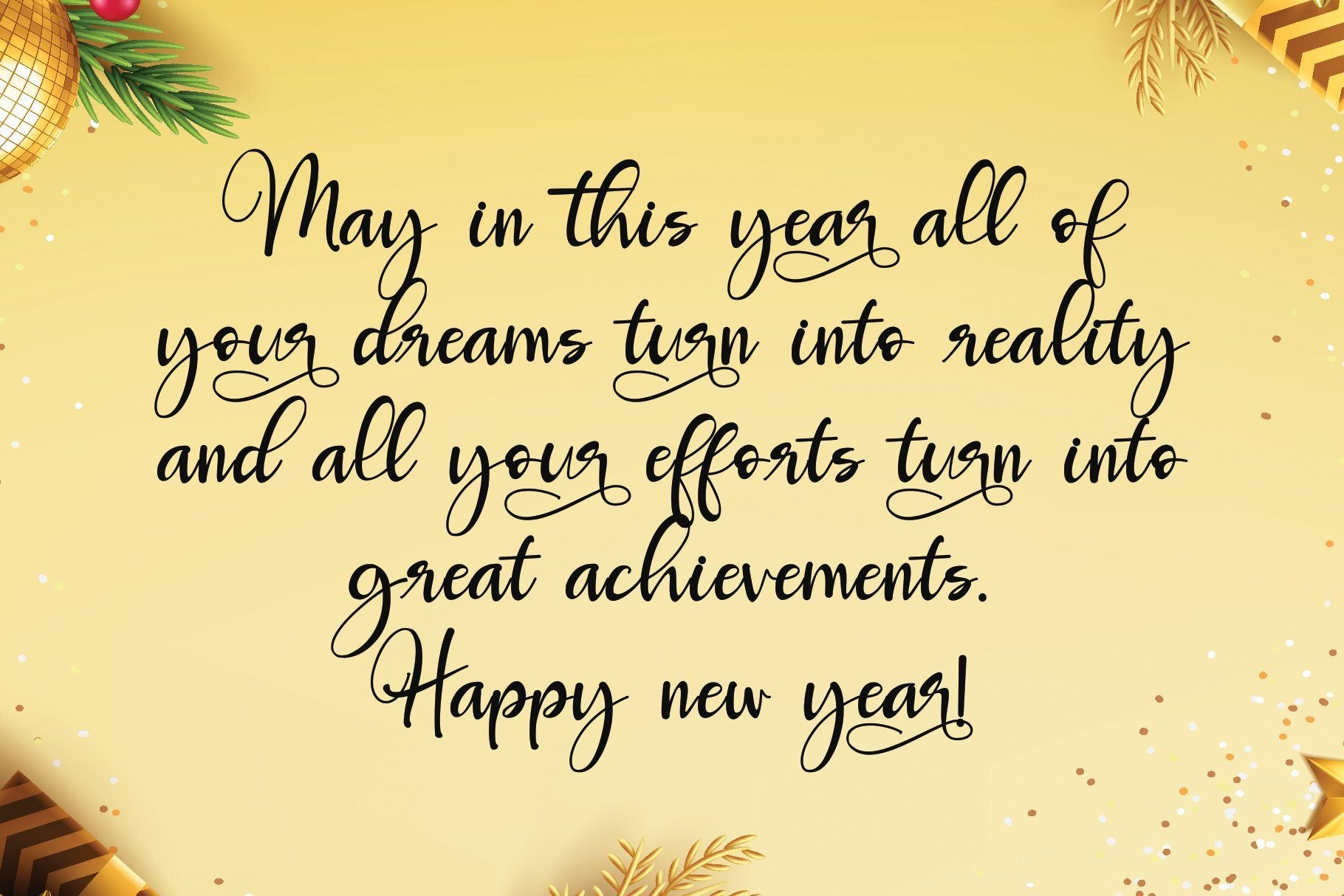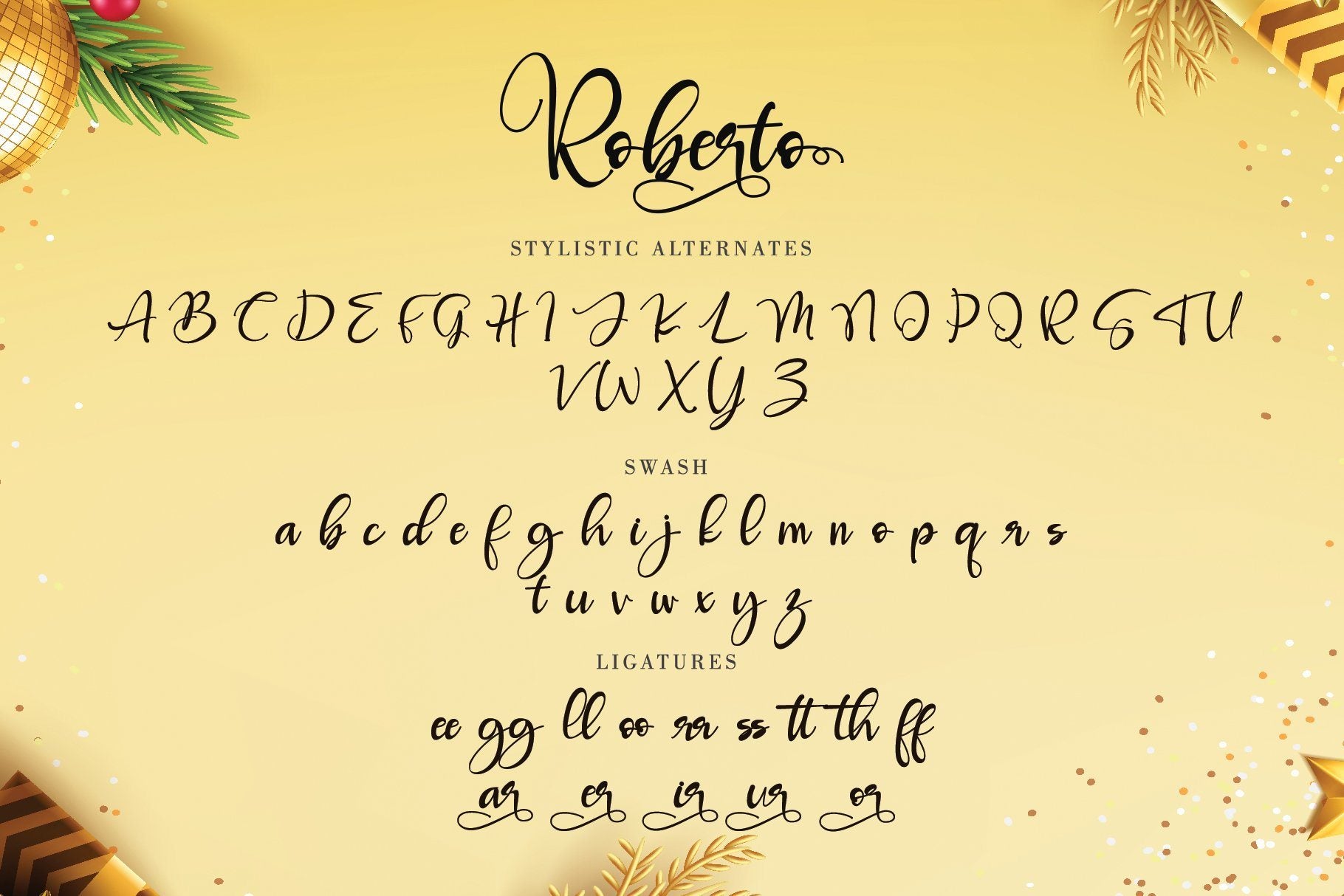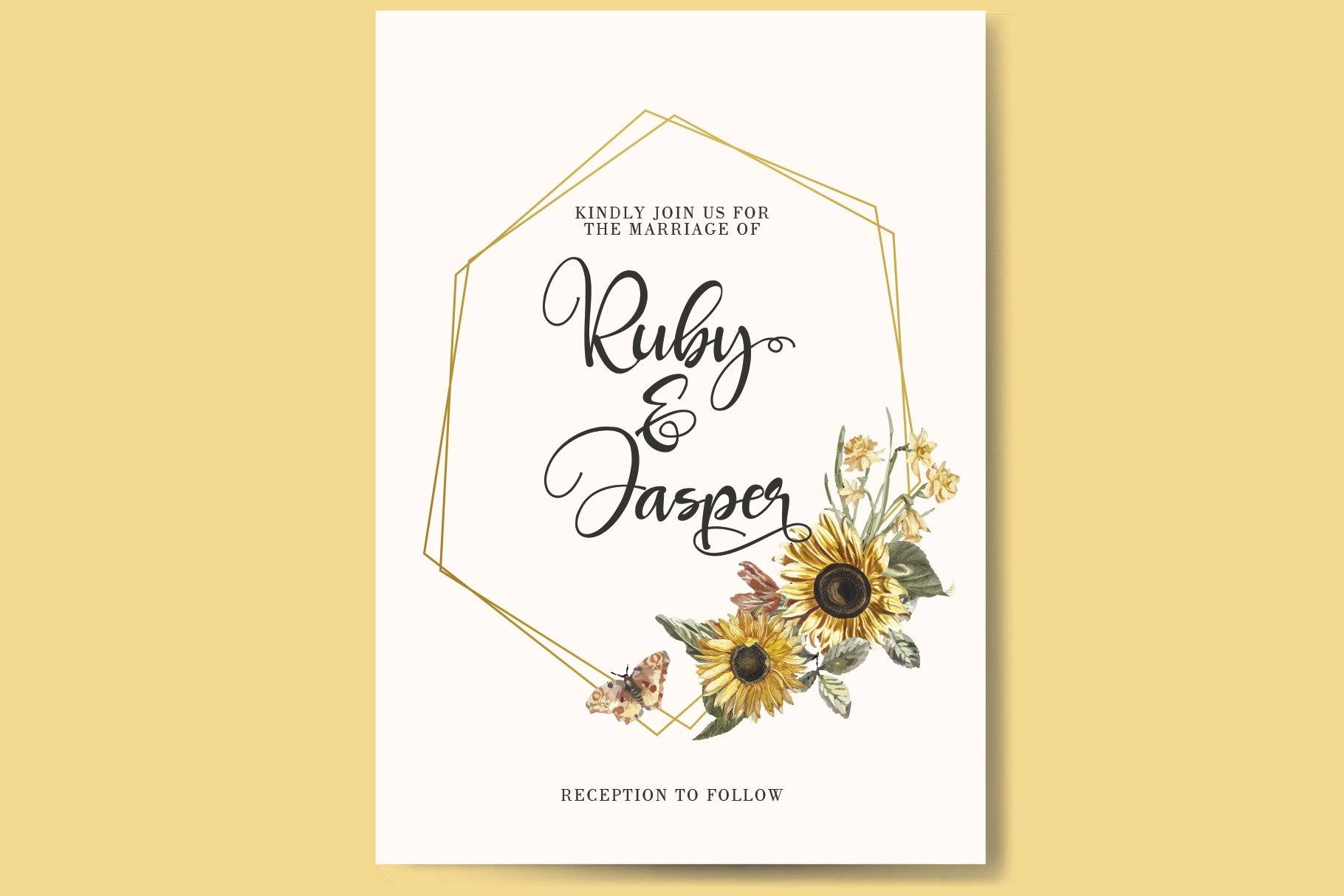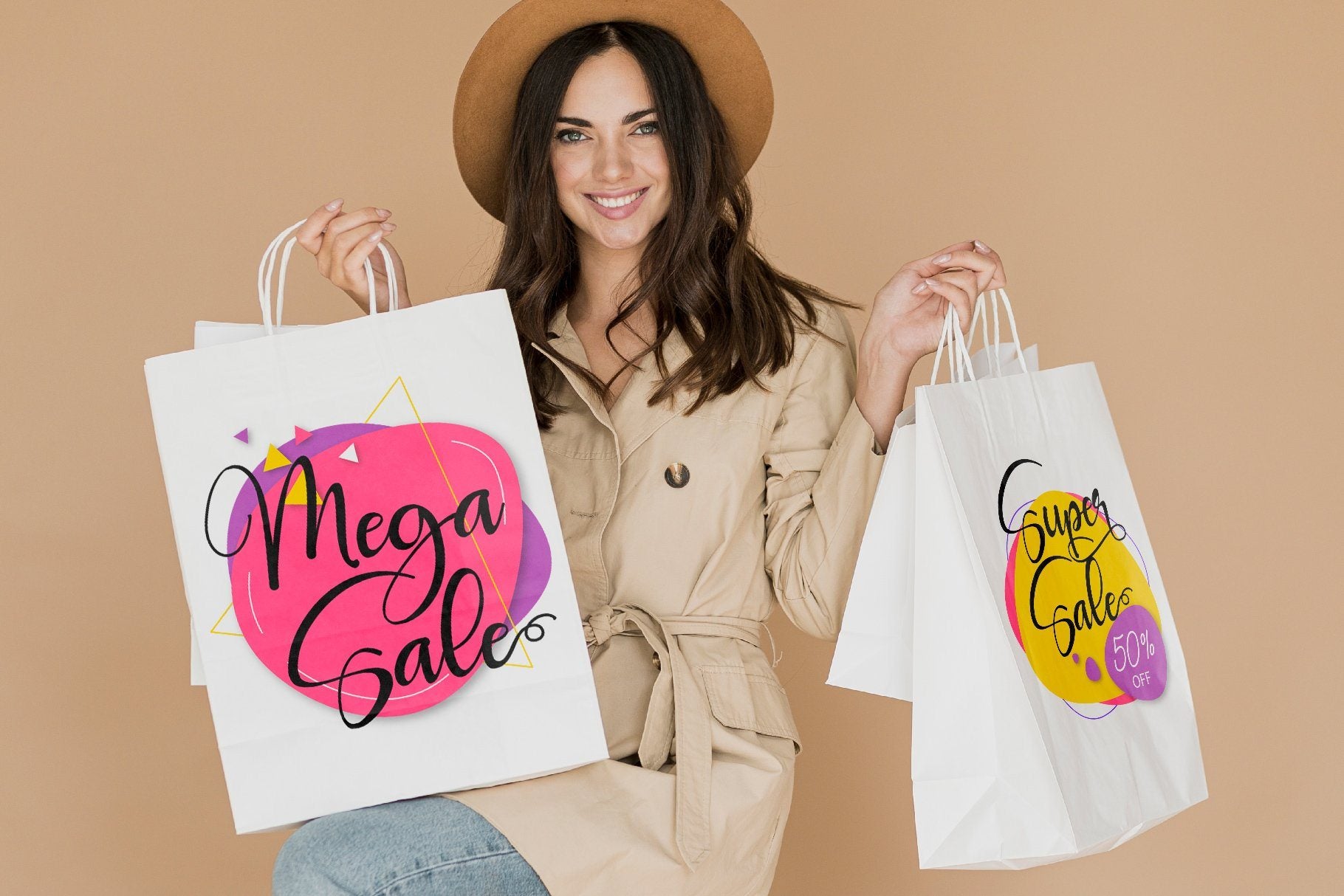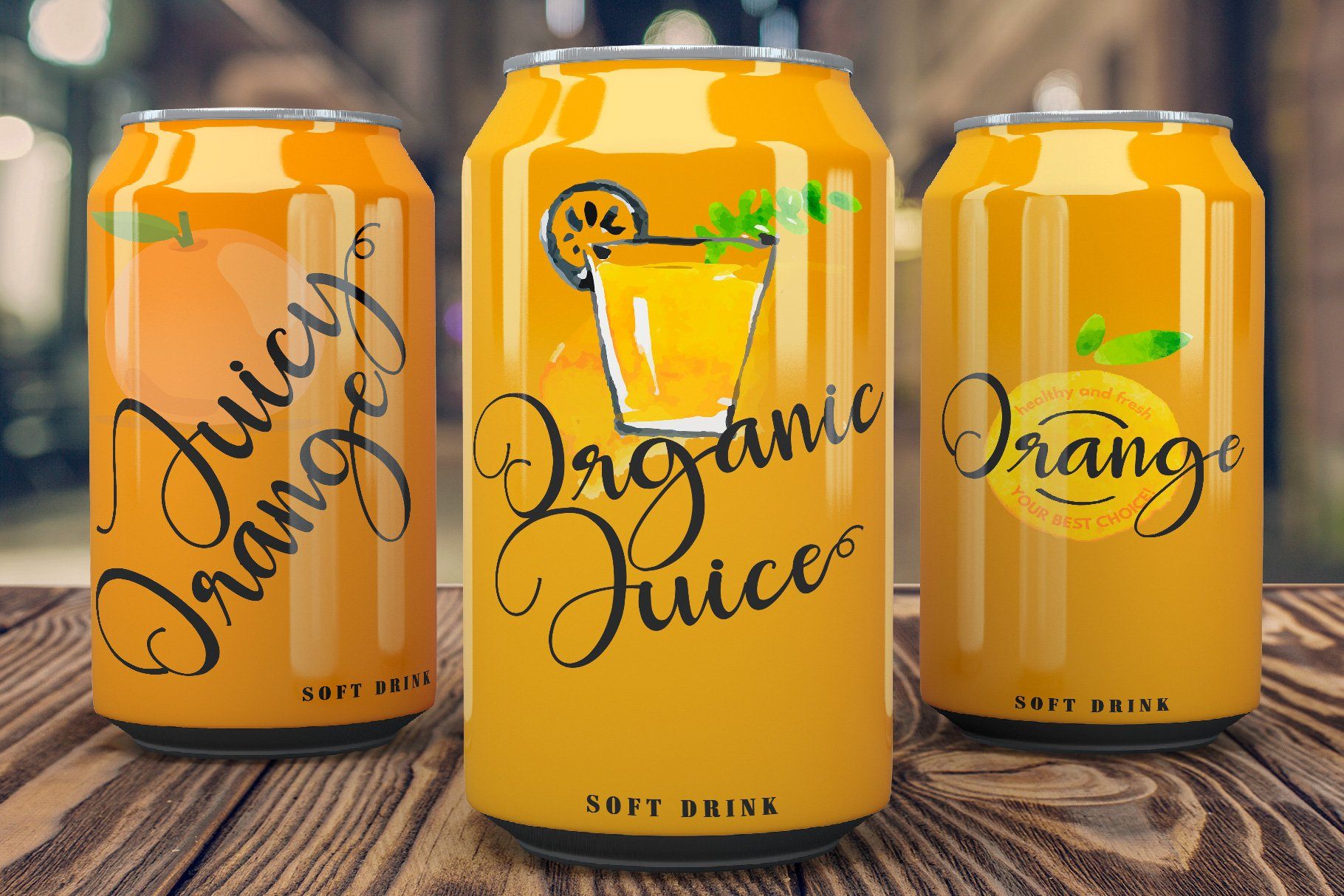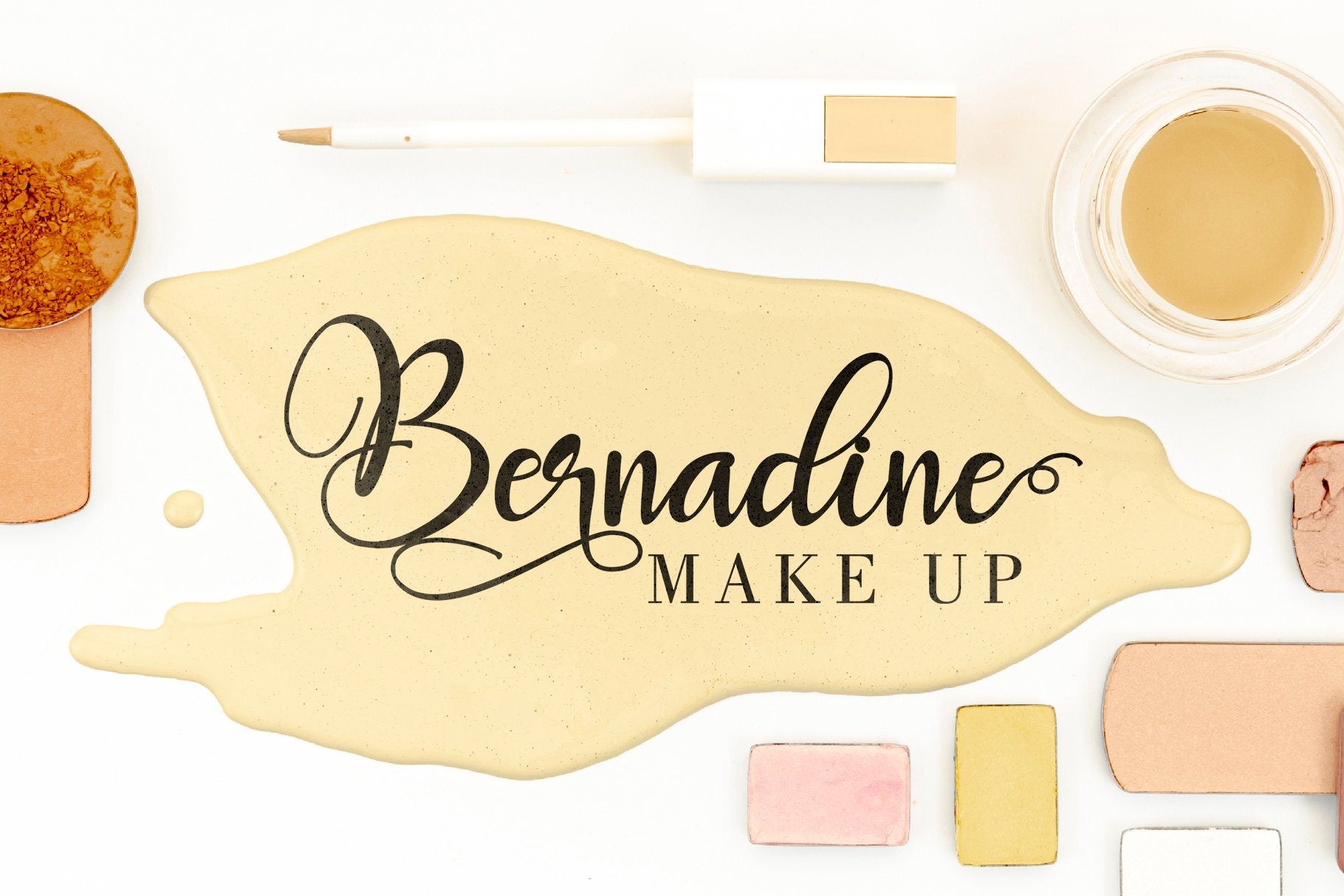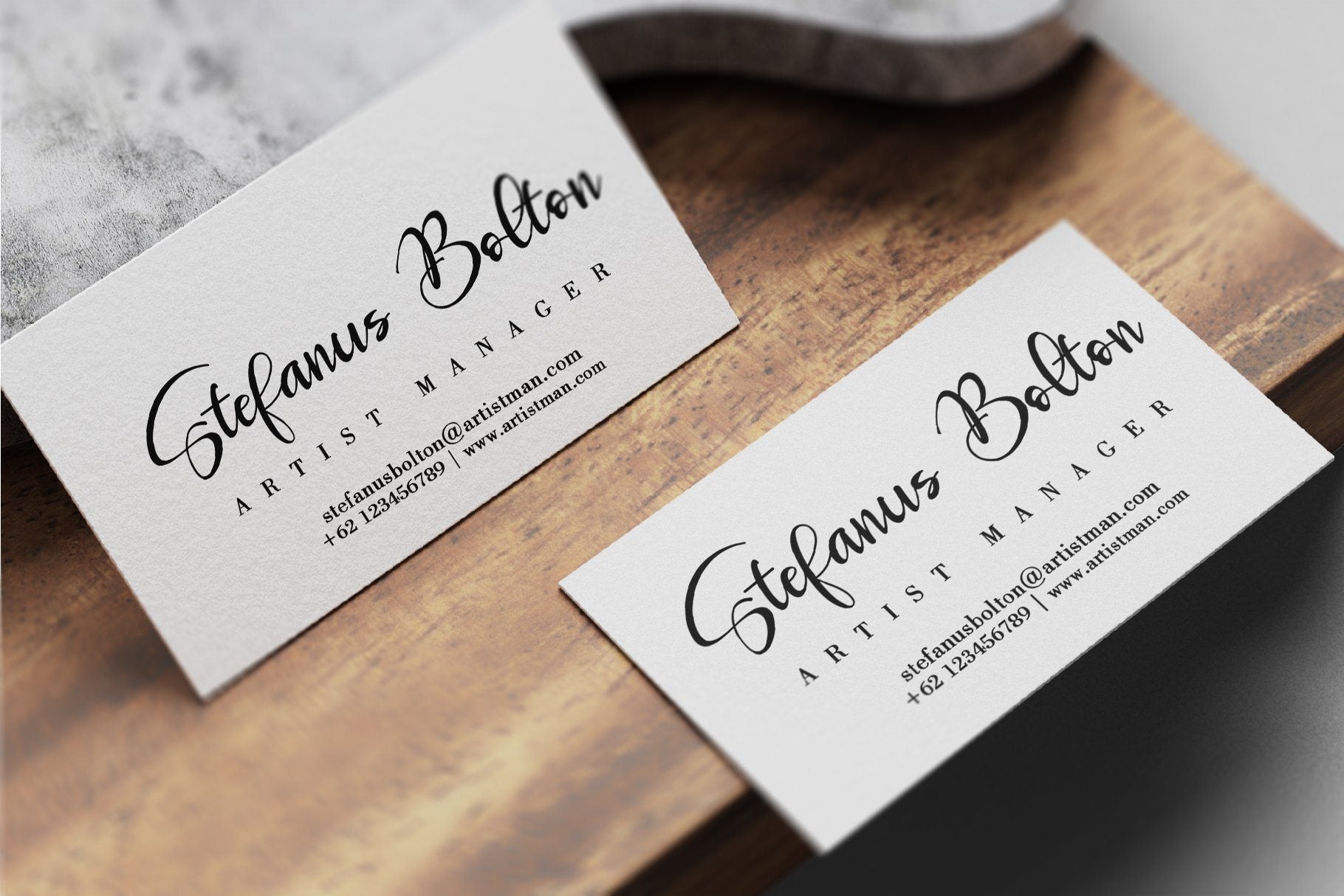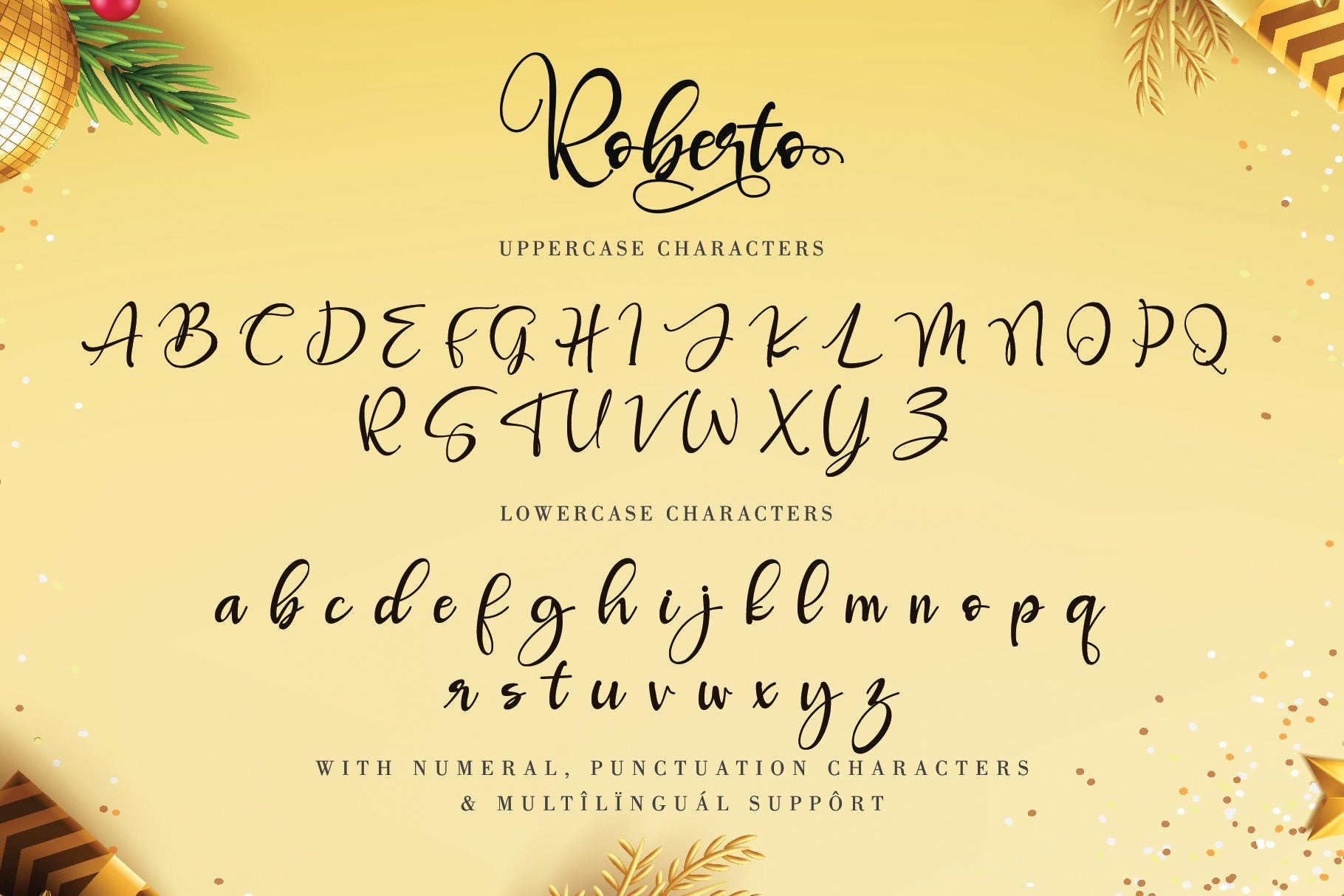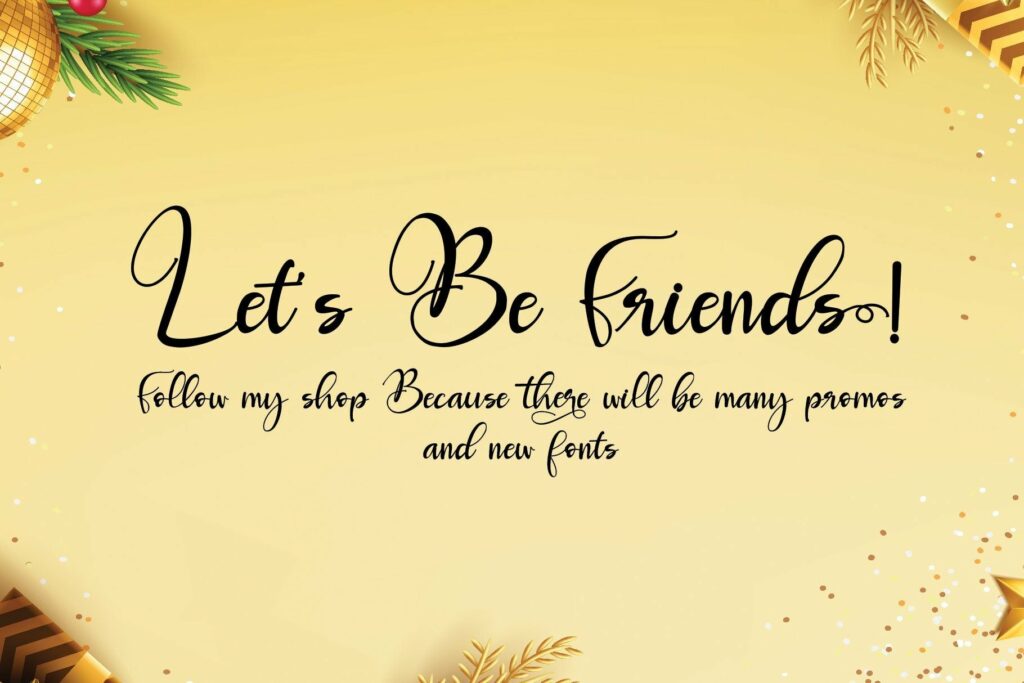
Roberto
About Roberto
Roberto is a charming and magical hand-lettered script font. The playful rounded characters make it the perfect font for creating stunning calligraphy results. Roberto comes packed with beautiful swashes, that will allow you to add a decorative touch within seconds. Get inspired by its authentic feel and use it to create greeting cards, branding materials, business cards, quotes, posters, and more! What’s included: The style in this font includes: Regular & Italic Works both on Mac & PC Simple installations Alternate, Swash & Ligature Accessible in the Adobe Illustrator, Adobe Photoshop, Adobe InDesign, CorelDraw, even work on Microsoft Word. Support multilingual; ä ö ü Ä Ö Ü ß ¿ ¡ To access the alternate glyphs, you need a program that supports OpenType features such as Adobe Illustrator CS, Adobe Photoshop CC, Adobe Indesign, and CorelDraw. More information about how to access alternate glyphs, check out this link  ( http://goo.gl/ZT7PqK ) To stay up to date for my latest job, follow me and let’s be friends because there will be many promos. Our other products : BEST SELLER MILEADILA BEAUTIFUL KISSES ANGELIN GAMOS HERTINA JENNIE ANTIKA AURORA BLACK PINK SIGNATURE California Street BESTOWENS FAMILY